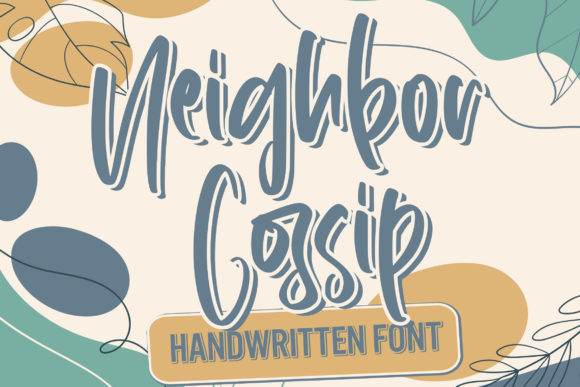
Prepare to be captivated by Neighbor Gossip, the exquisite script font that exudes elegance and charm. Its graceful curves and alluring flow will ignite your creative spirit, making it the perfect choice for any project that demands sophistication and flair.
Indulge in the beauty of Neighbor Gossip's meticulously crafted characters, each a testament to the art of digital penmanship. Feel the joy of your words dancing across the page, imbued with a touch of whimsy and a dash of allure.
Picture the enchantment of a wedding invitation adorned with Neighbor Gossip's enchanting embrace, evoking a sense of timeless romance. Imagine the allure of a fashion magazine spread, where headlines and captions come alive with Neighbor Gossip's irresistible charm. The possibilities are boundless, and the results are guaranteed to leave an indelible mark.
With Neighbor Gossip by your side, you hold the key to unlocking a world of creative expression. Its versatility knows no bounds, making it an ideal companion for both personal and professional endeavors. Unleash your imagination and allow the magic of Neighbor Gossip to transform your designs into masterpieces.
Don't resist the allure of Neighbor Gossip. Embrace its captivating essence and witness the transformation of your creative endeavors. Let its graceful strokes guide your designs to new heights of beauty and sophistication. Immerse yourself in the world of Neighbor Gossip and discover the true meaning of creative fulfillment.